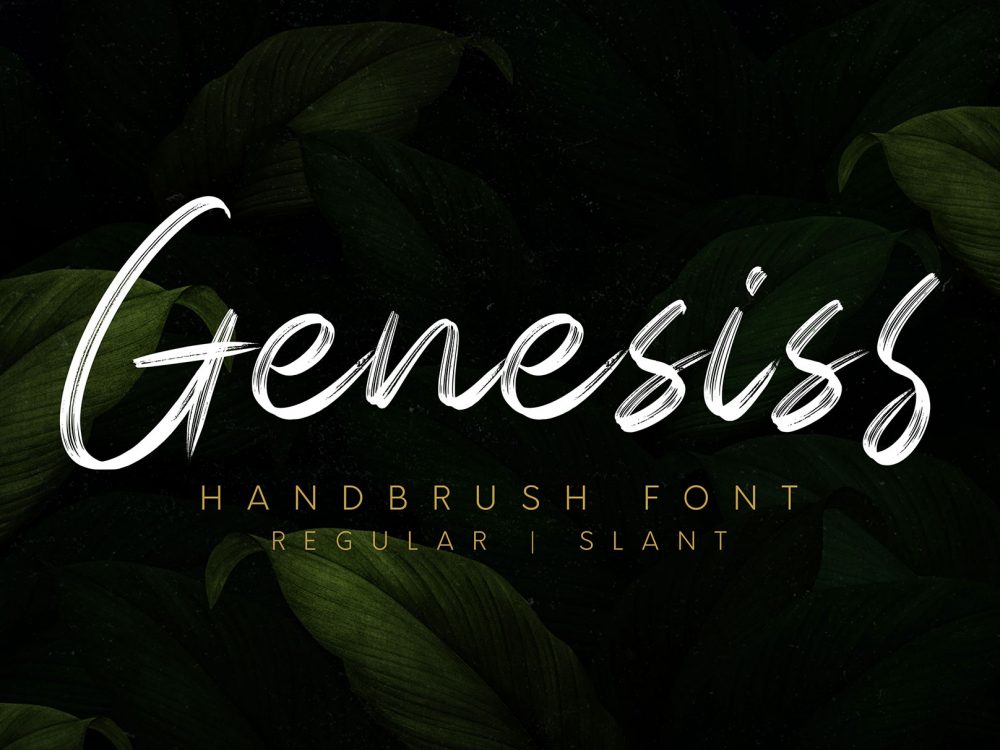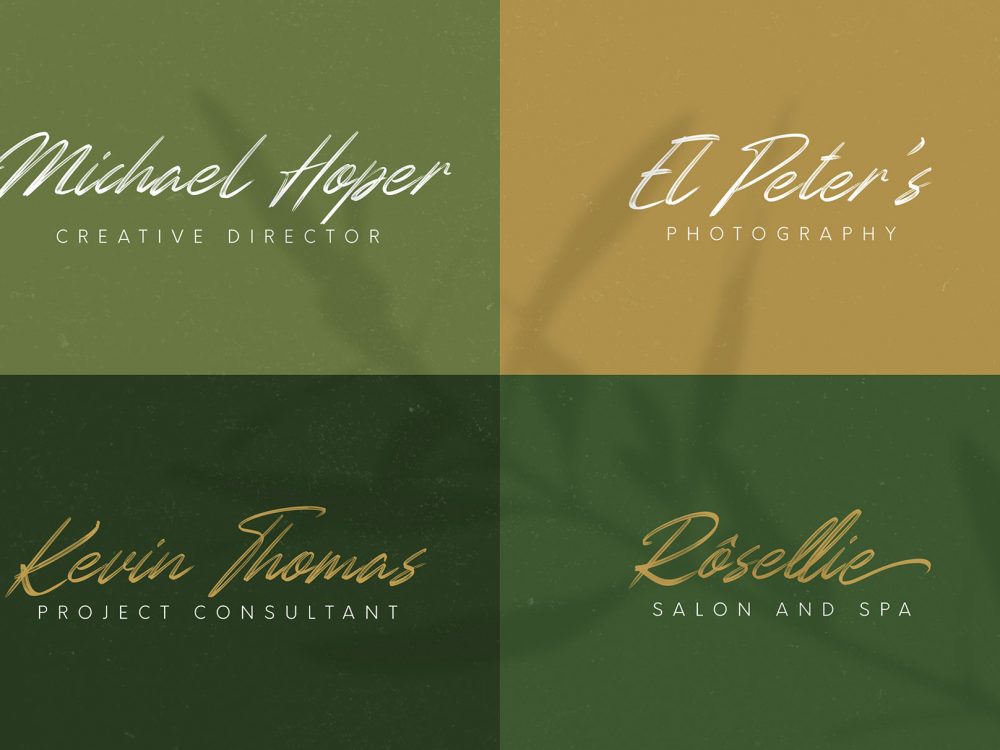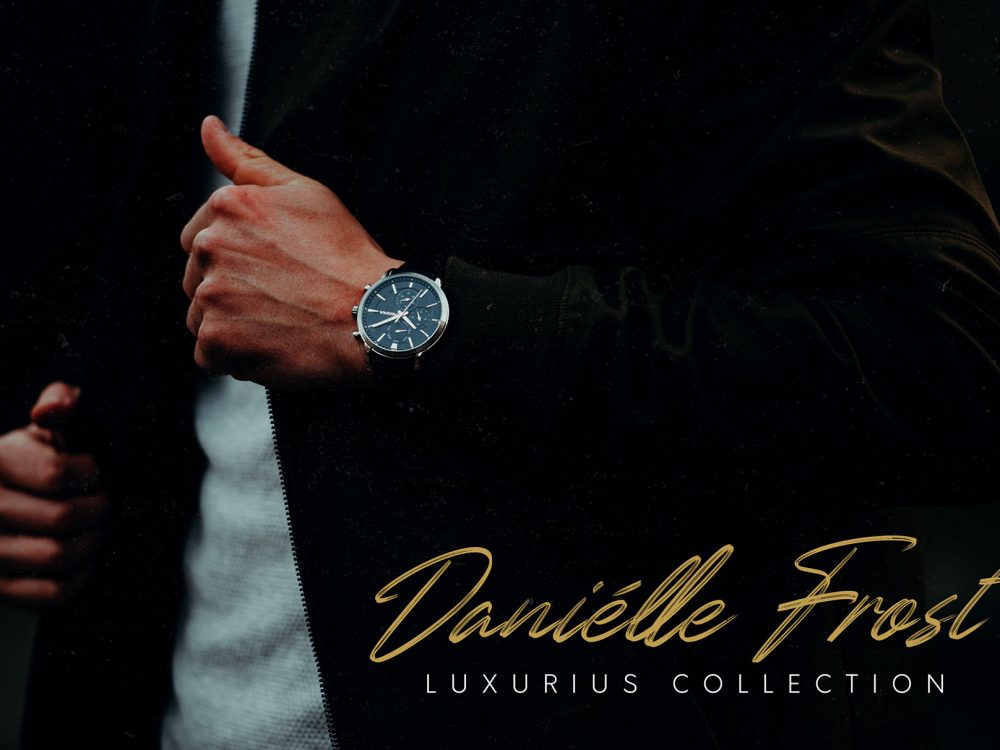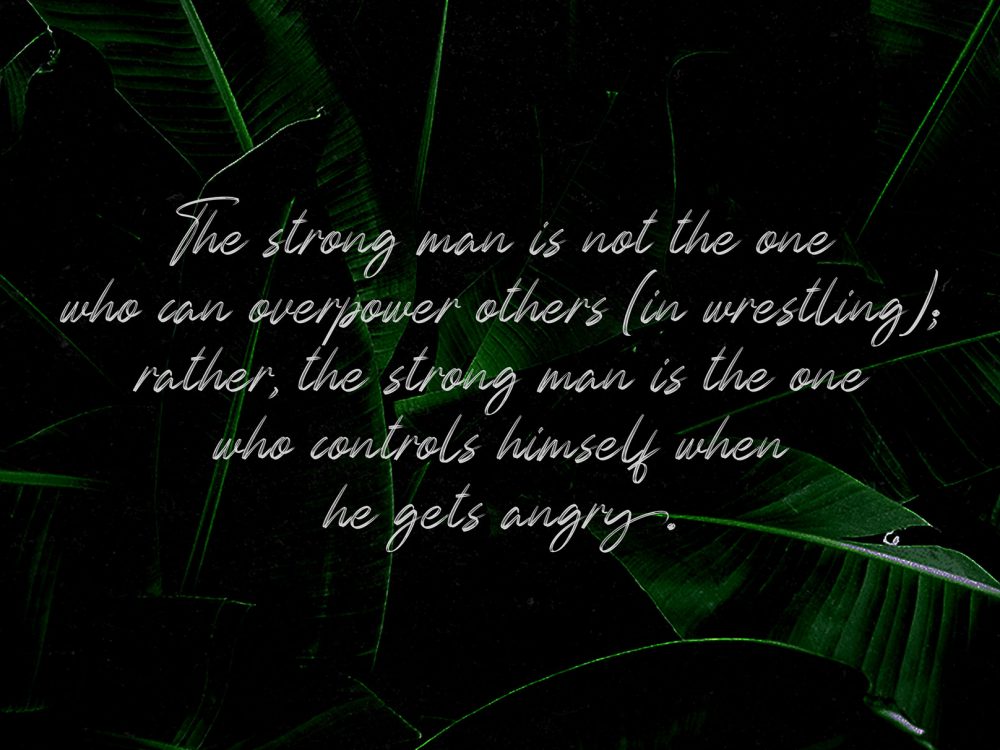
Genesis Free Font
Genesis Free Font is an interesting modern typeface with 2 styles, regular and slant that mimics writing with a brush and has an elegant style. This font is very suitable for creating various design projects that require a scripted font. You can use this font to create memorable romantic posters, wedding invitations, greeting cards, branding, flyers, t-shirt and pillow prints, and more. Improve the quality and increase the popularity of your design projects using this font. If you like it don’t forget to check out the full version.